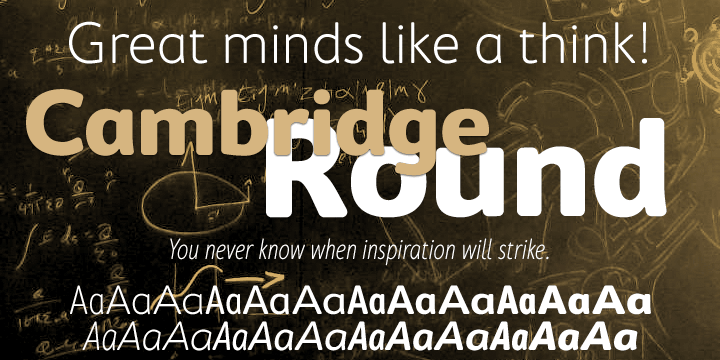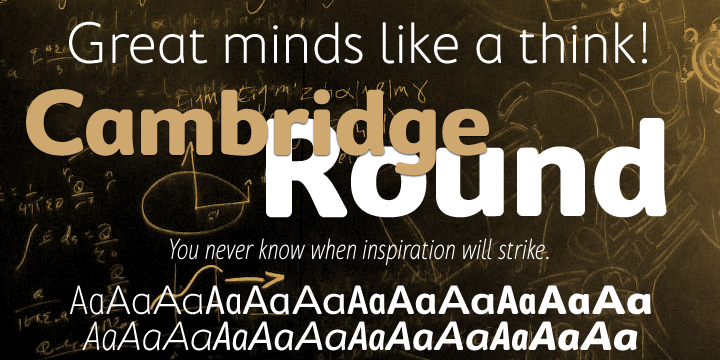
Cambridge Round is a sans serif font family. This typeface has twenty-four styles and was published by Aviation Partners.
Cambridge Round provides a rounded version of Cambridge, useful for headings and more informal texts. The family contains four weights in three widths with matching italic forms for all variants.